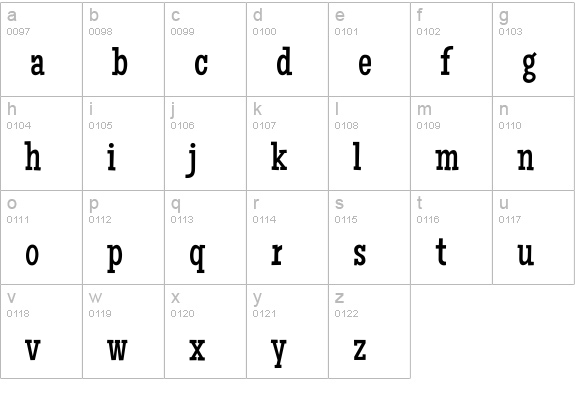
Maiden Orange Font Details
Maiden Orange font is a stunning display typeface that exudes elegance and sophistication. Its unique design combines intricate curves and sharp edges, resulting in a captivating visual aesthetic that is sure to make any design stand out. With its bold and eye-catching letterforms, Maiden Orange font is perfect for logos, headlines, and other creative projects that require a touch of modernity and flair. Its versatility allows it to adapt to various design styles, making it a go-to choice for both professional designers and casual users alike. One of the standout features of Maiden Orange font is that it is available for free. That's right - this remarkable typeface can be freely downloaded at FontsMarket.com. This means that you can easily incorporate this stunning font into your projects without worrying about any additional costs. Whether you're designing a website, creating marketing materials, or simply looking to add a touch of sophistication to your personal projects, Maiden Orange font is the perfect choice. Its timeless elegance and freely available nature make it a must-have for anyone looking to elevate their design game. So why wait? Head over to FontsMarket.com and download Maiden Orange font today!